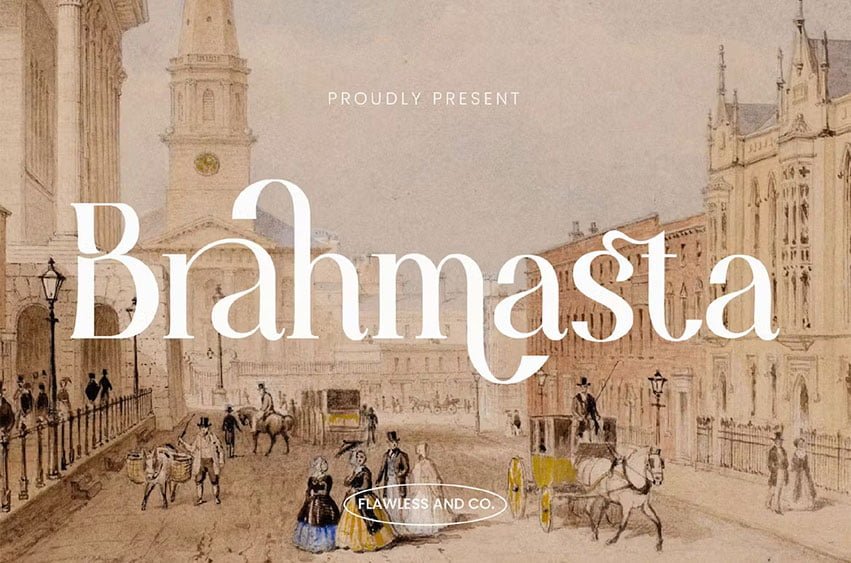
Brahmasta Font Our latest creation, is a modern serif with various alternates and ligatures, multilingual support, and an updated blend of bohemian style, suitable for branding, business,magazines, and others.
Brahmasta Font Preview